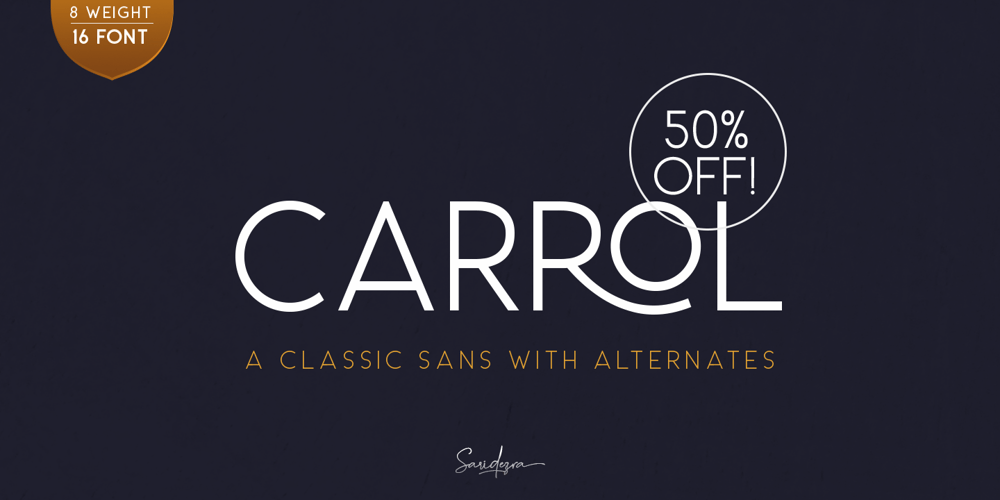
Carrol
Carrol font
Carrol Font Family was designed by Sarid Ezra and published by Sarid Ezra. Carrol contains 16 styles and family package options. Introducing My first sans font. Carrol, a classic sans with alternates!Carrol is a classic and modern sans with alternates in each alphabets! Every alphabet have alternates up to 3 kinds! This font fits in any project. You can use it for a tittle, logo, quotes, or become a pairing in any script font. This font also support multi language!You can get 6 style with italic in every style. This font included: Thin Thin Italic Light Light Italic Regular Italic Medium Medium Italic SemiBold Italic Bold Bold Italic ExtraBold Italic Heavy Heavy Italic Thank You!